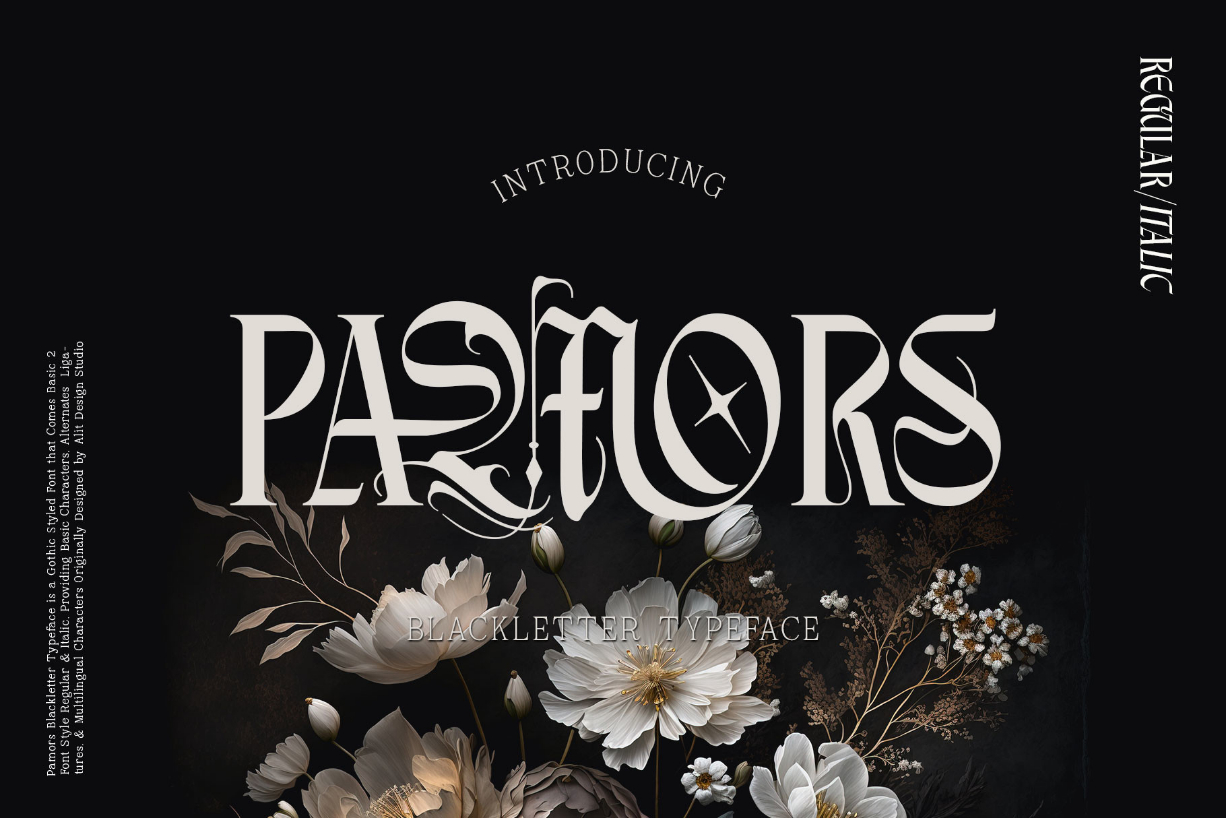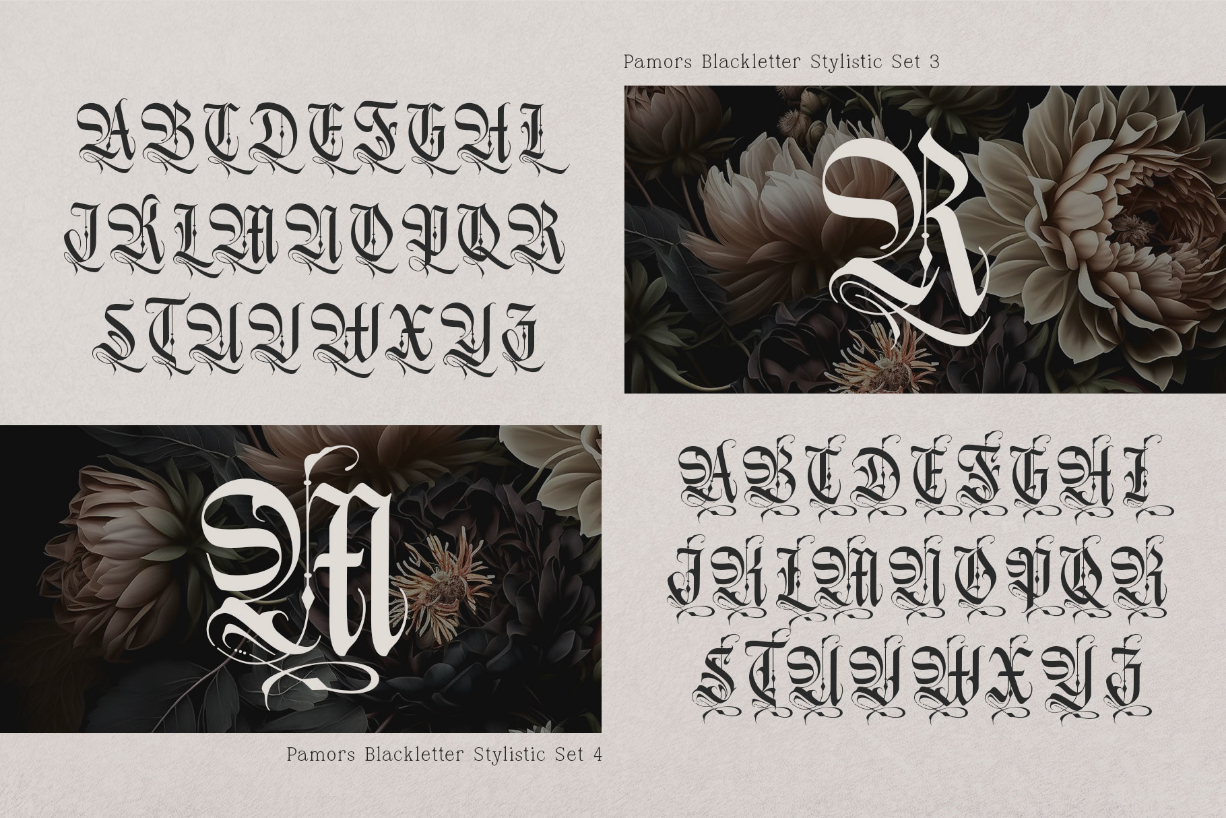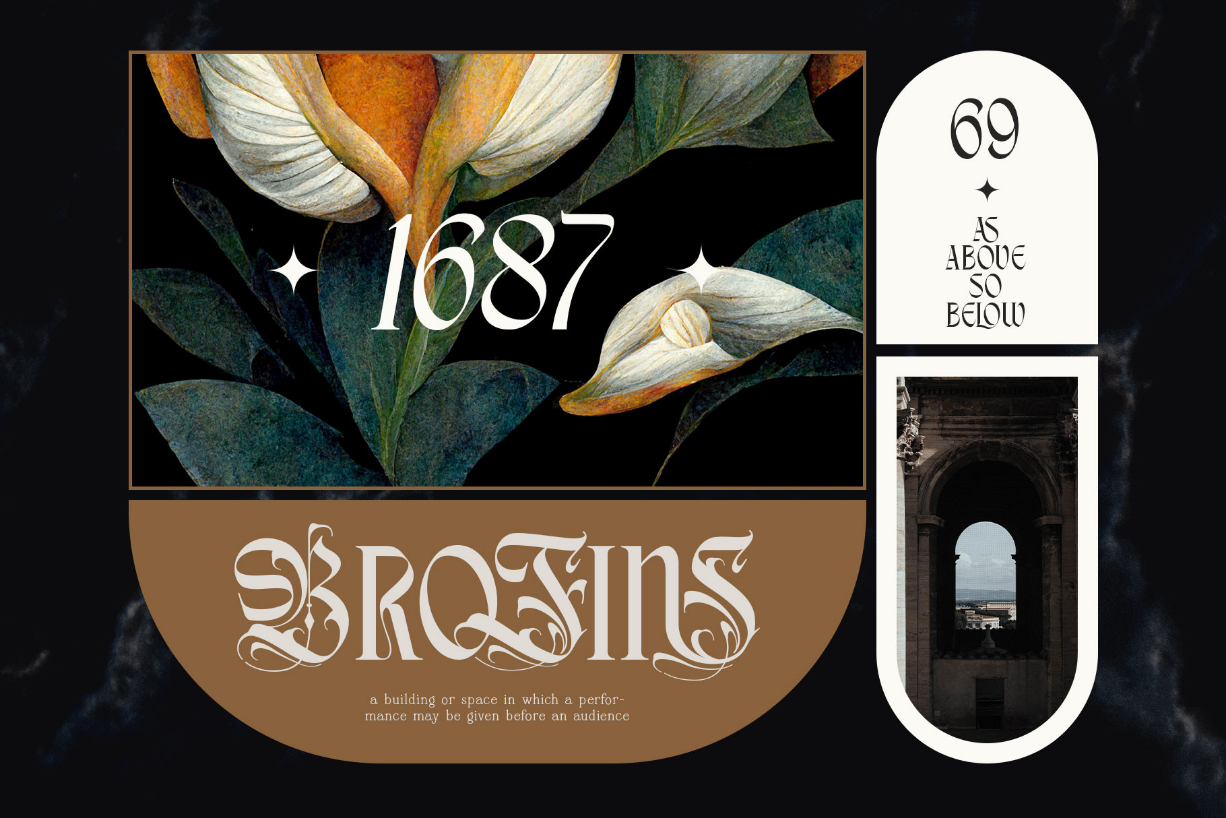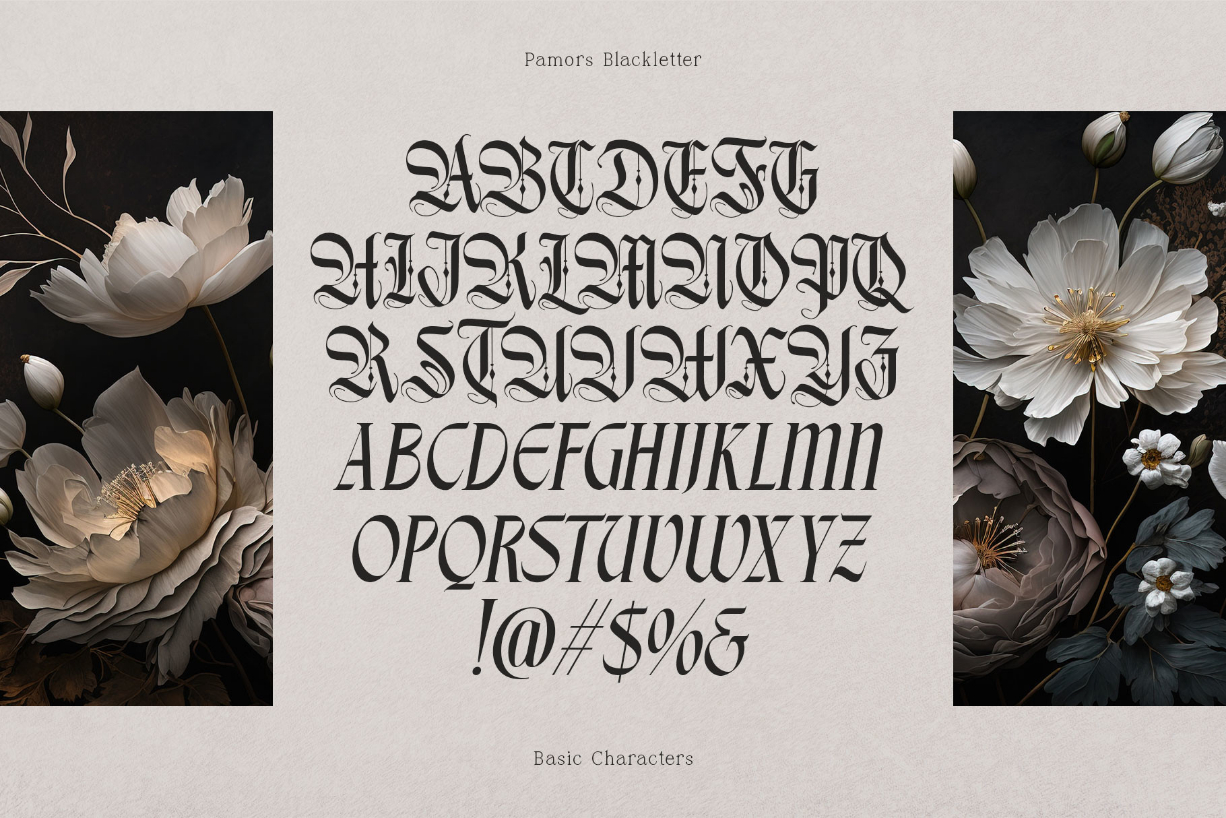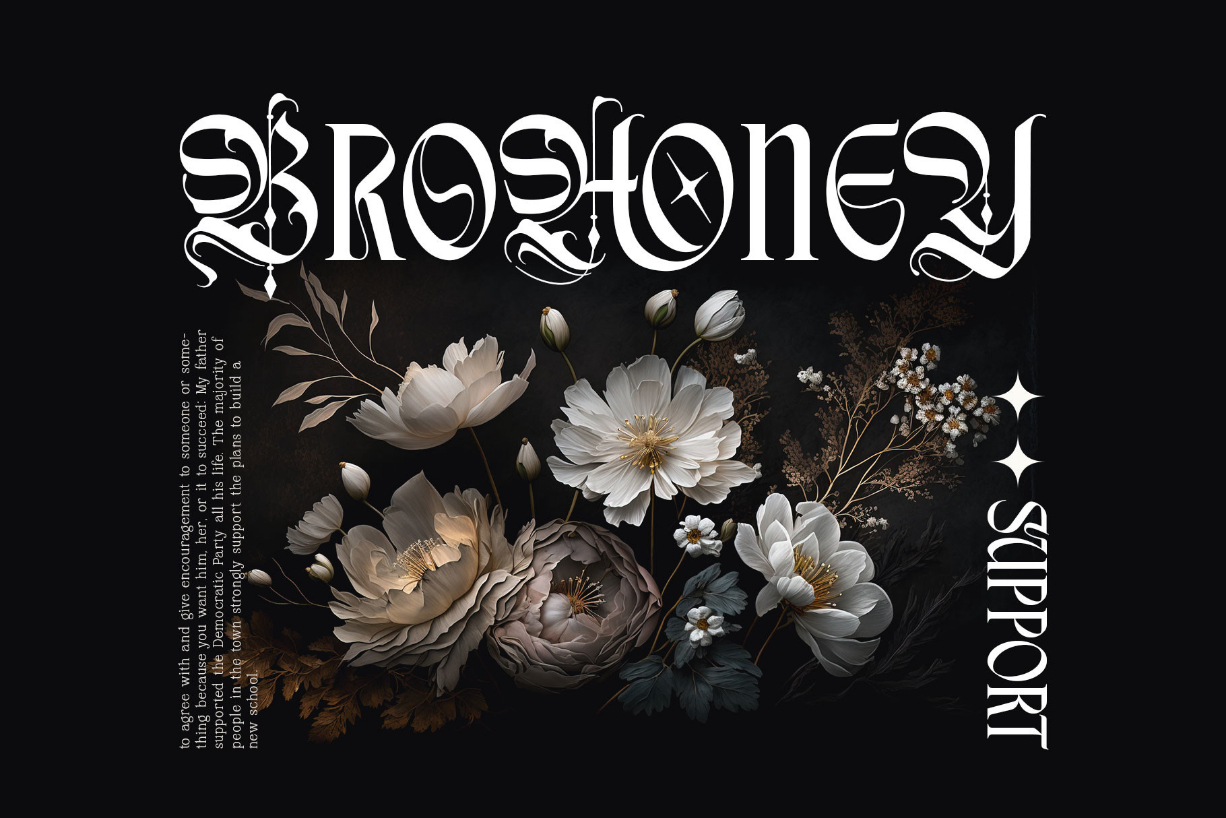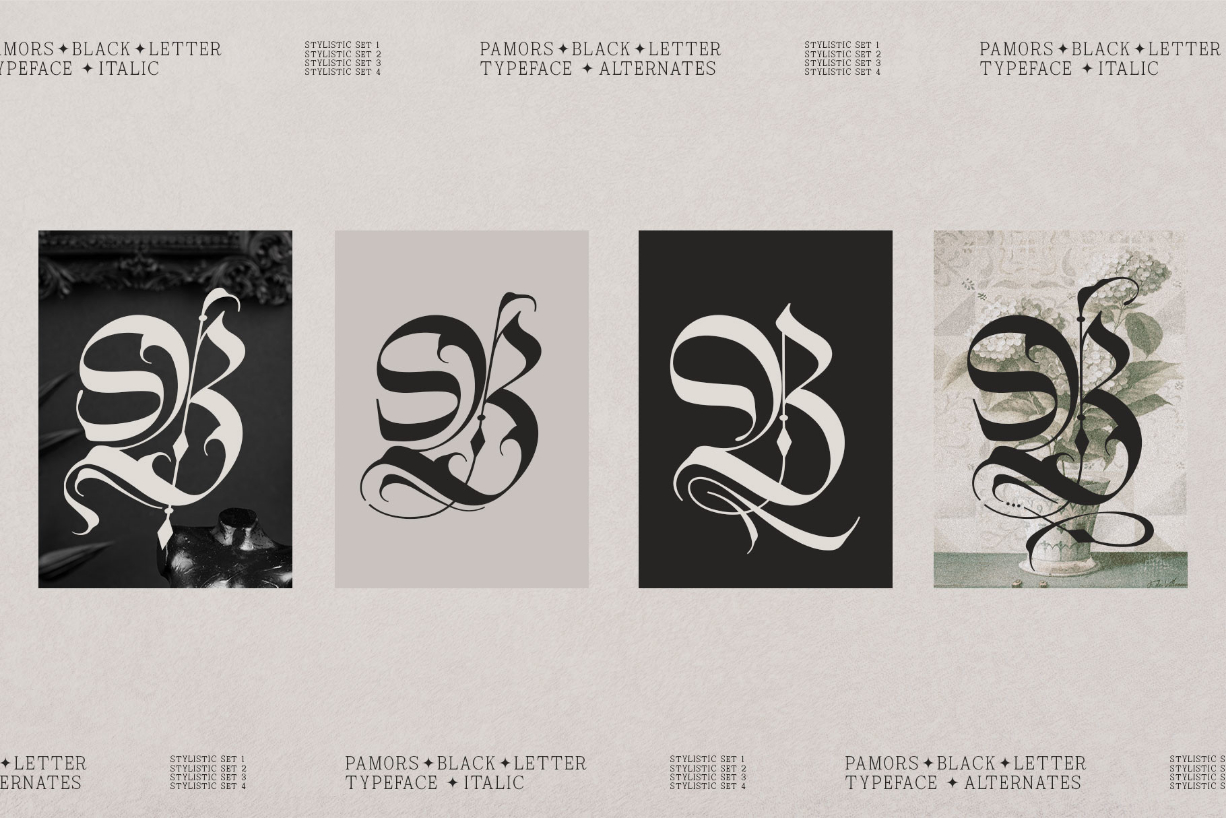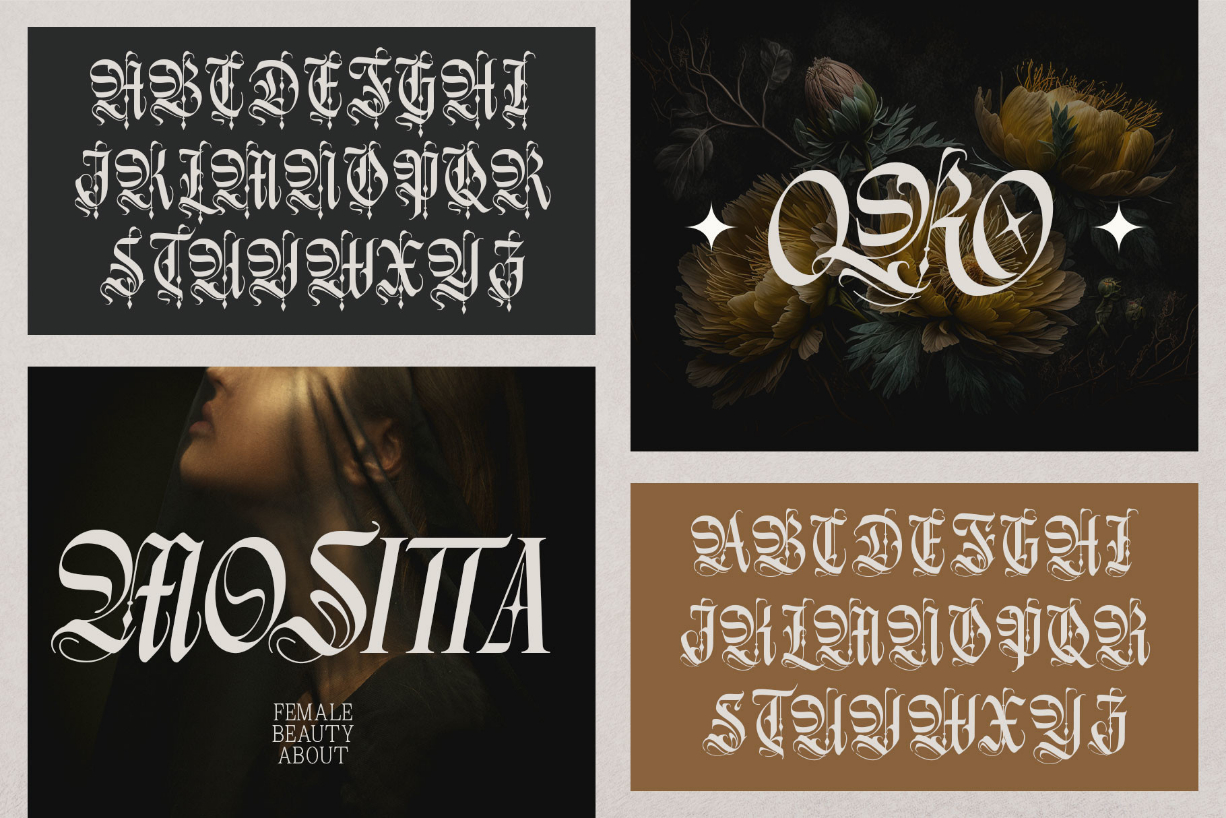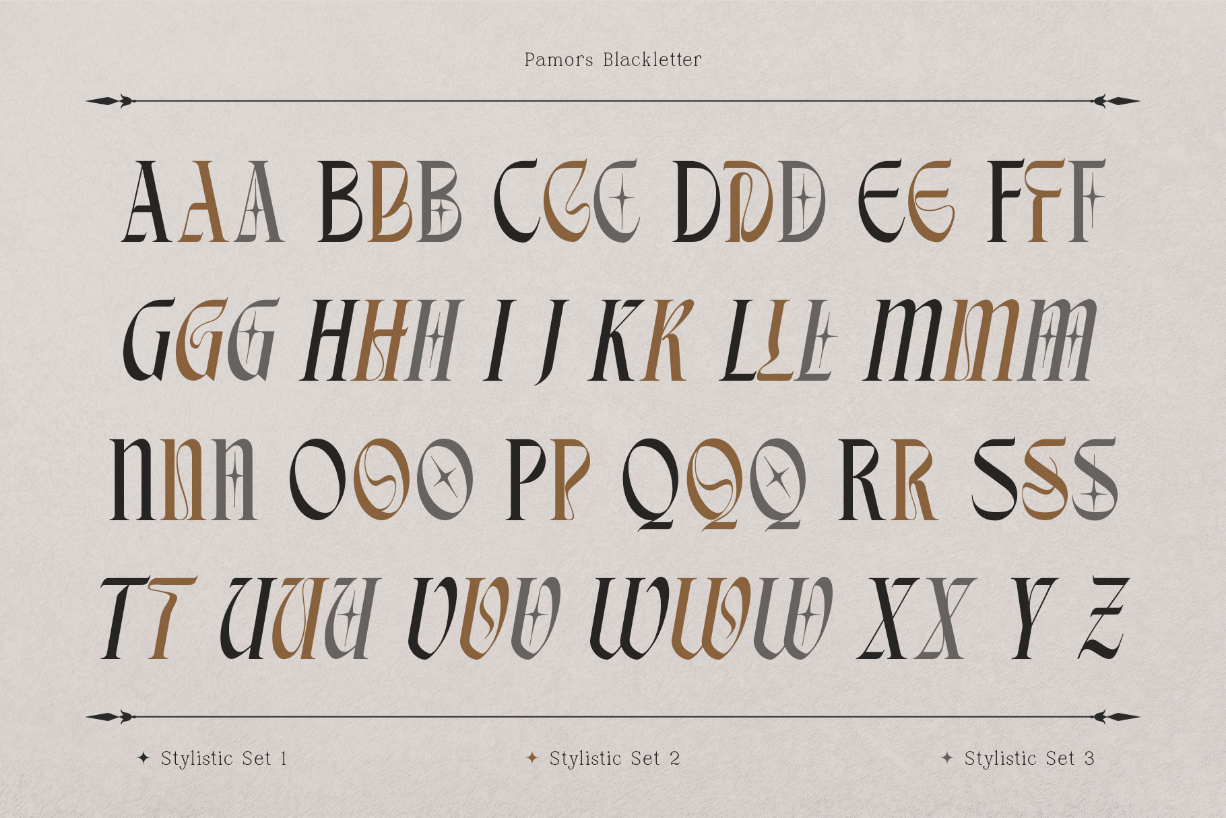
Pamors Font
About Pamors Font
PAMORS typeface is a bold and daring blackletter font that exudes a sense of strength and power. The mix of regular and italic styles provides versatility, making it suitable for a wide range of design applications. With 799 characters, Pamors typeface offers extensive multilingual support and includes PUA unicode for easy access to special characters.
One of the standout features of this font is its use of ligatures and swashes, which add an extra touch of elegance and sophistication to any project. Whether used in headlines, logos, or body text, the Pamors typeface is sure to make a bold statement that commands attention.